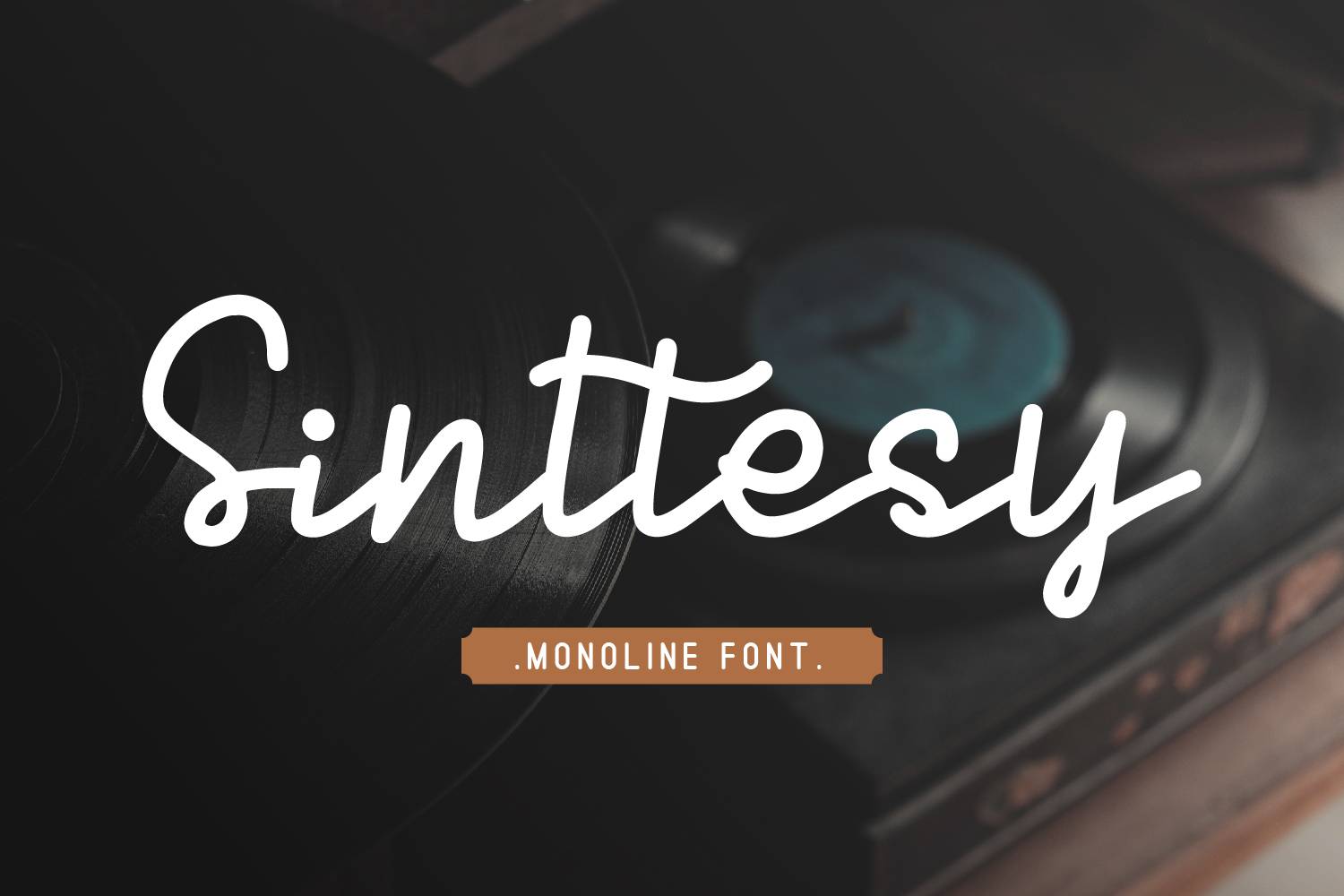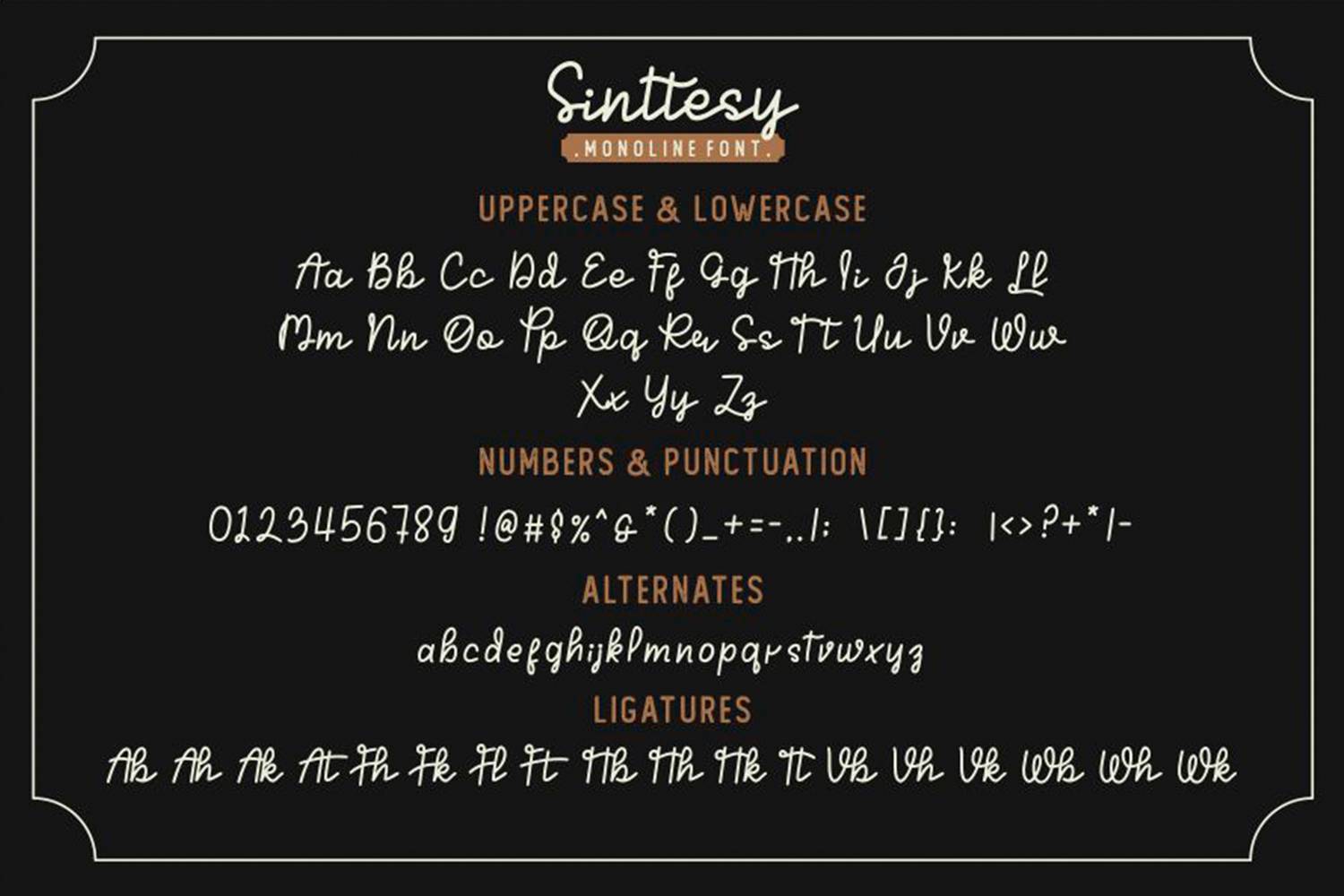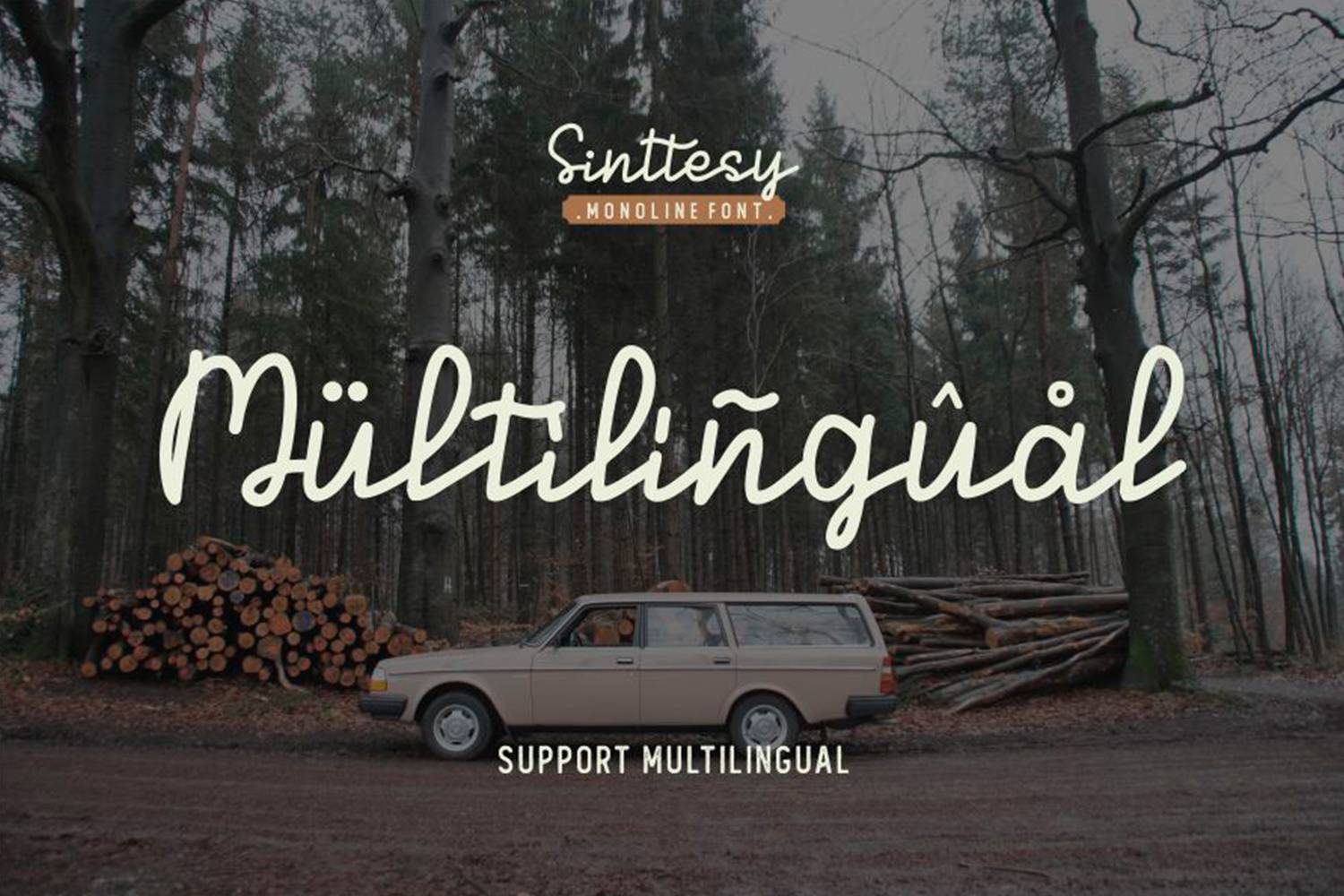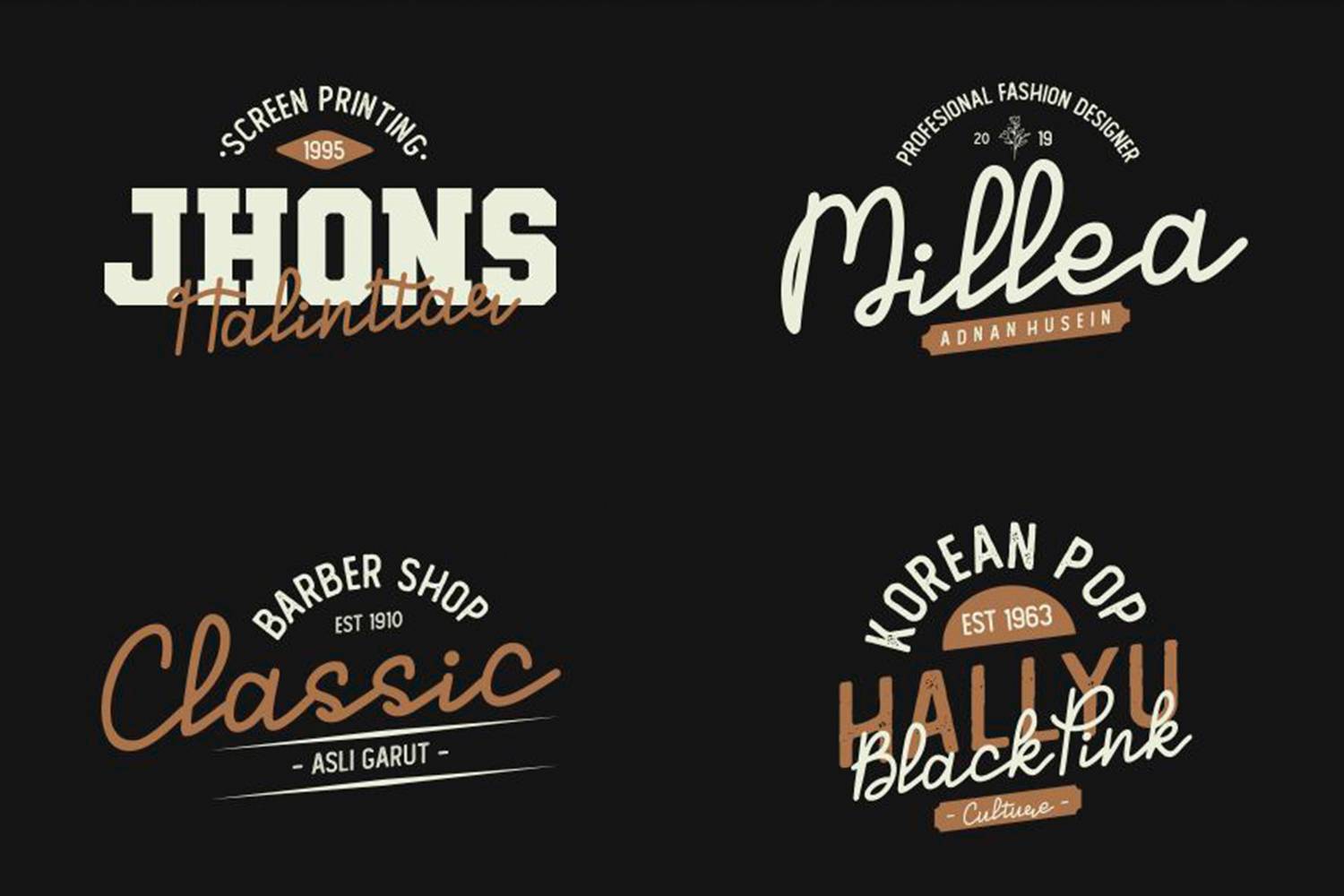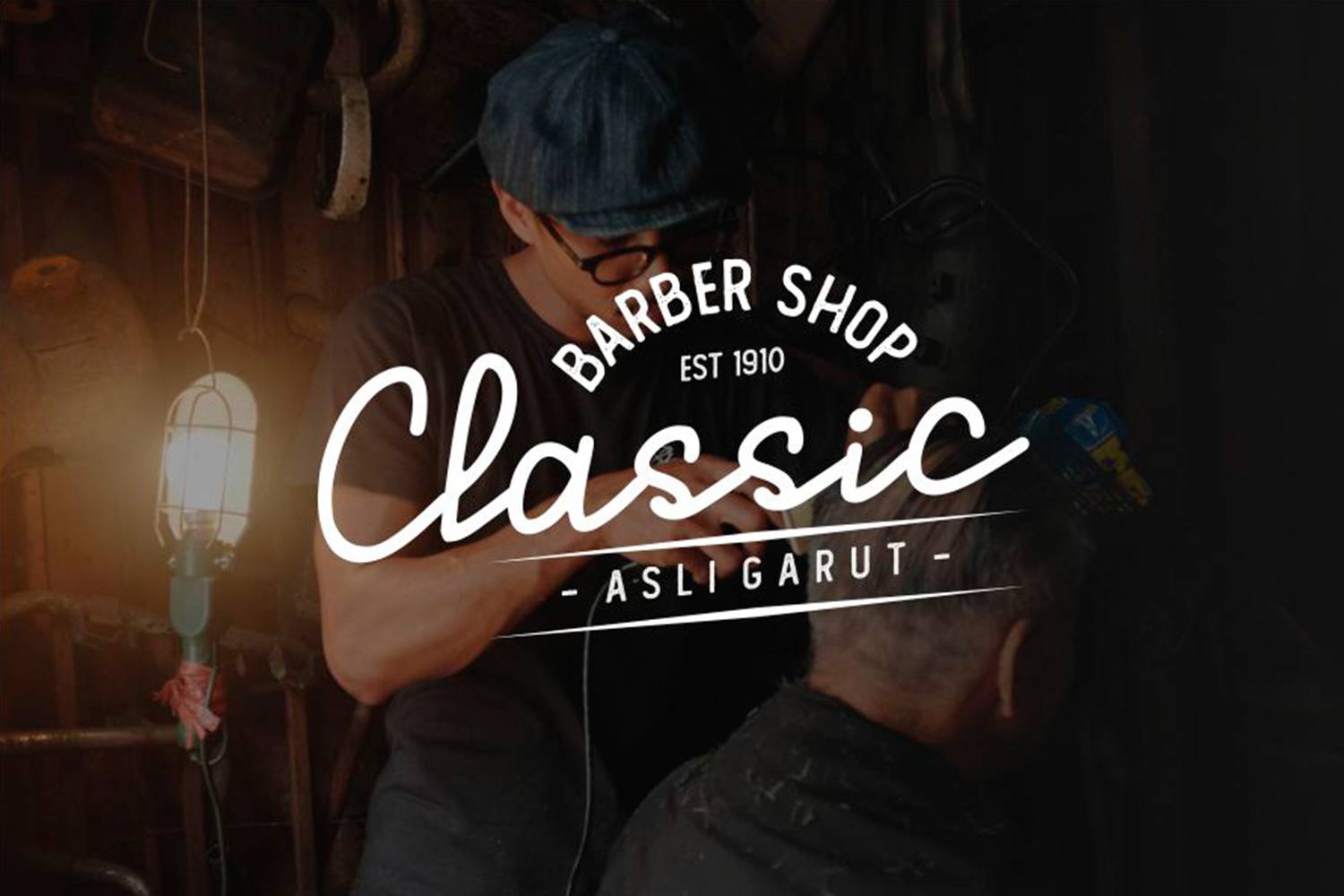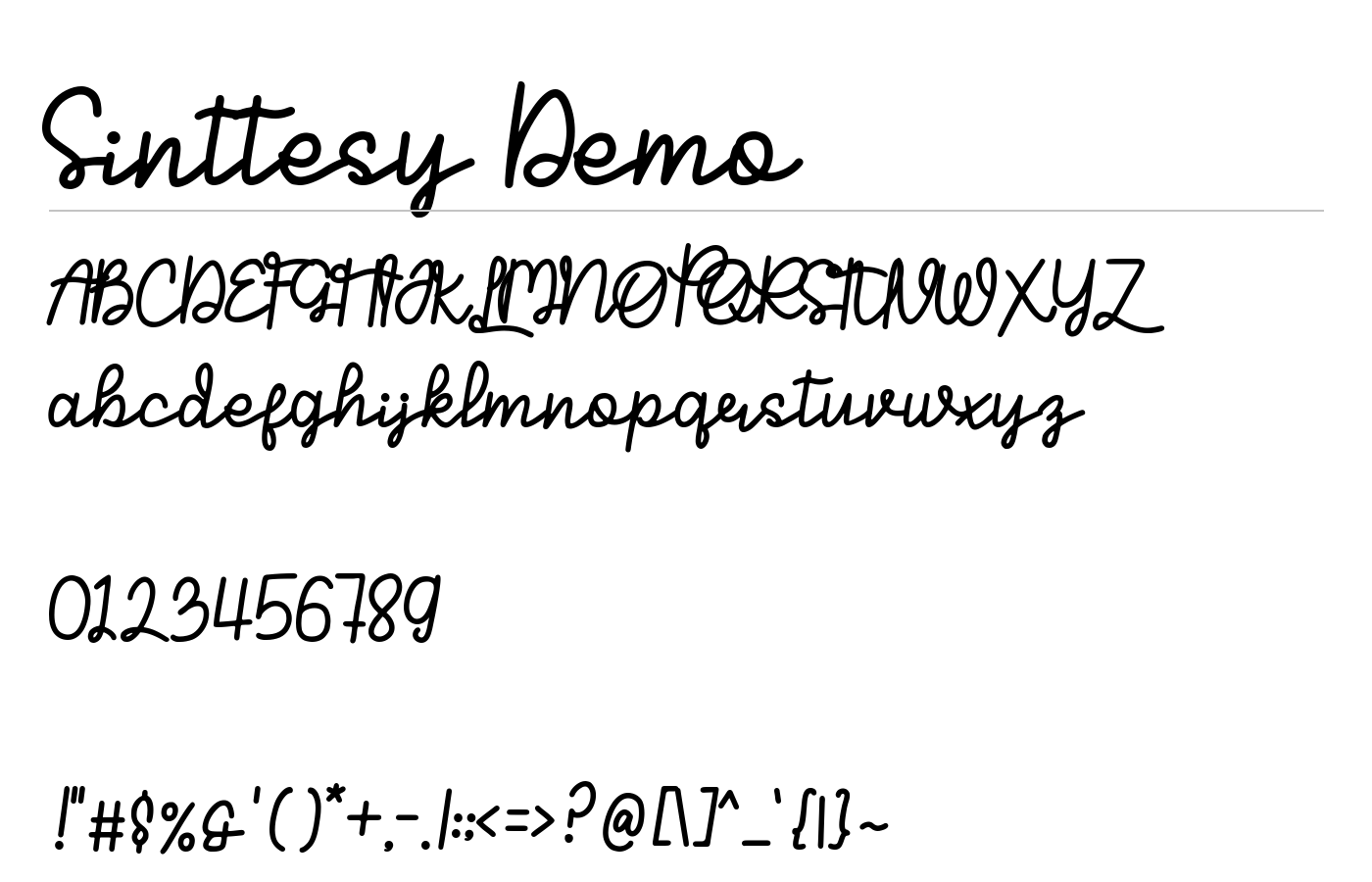
Sintessy is a playful and casual script font with a handwritten style that feels approachable and friendly. Its smooth, slightly irregular strokes and connected letters give it an organic, personal touch, making it ideal for creative projects, branding, or invitations where a warm, informal vibe is desired. This font works well for adding character and charm in headlines, logos, and packaging that aim to convey uniqueness and friendliness.
Sintessy Font
About Sintessy Font
| Font family | Sintessy Font |
| Release date | 2019-10-07 |
| Designer | Sabr Creative Studio |